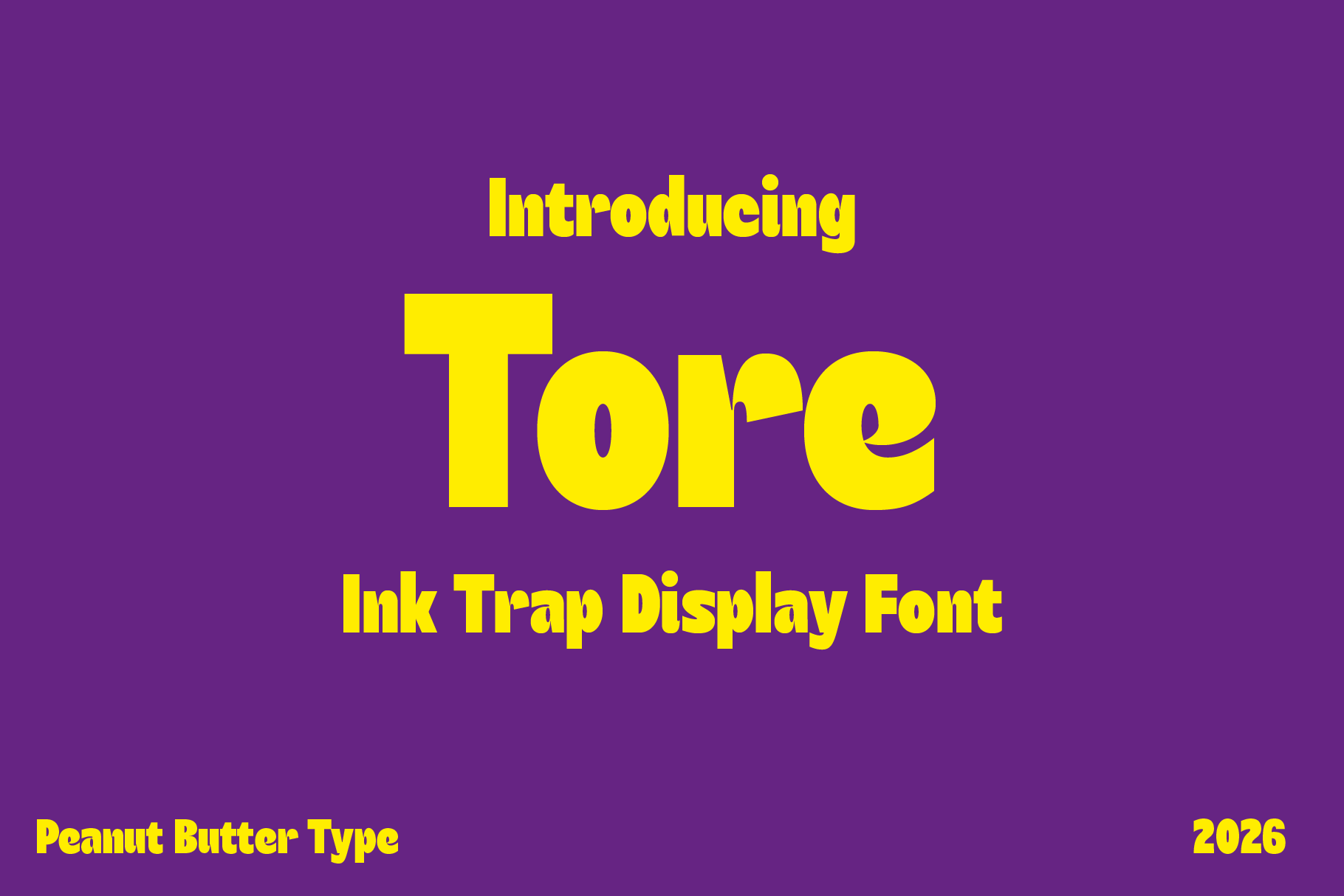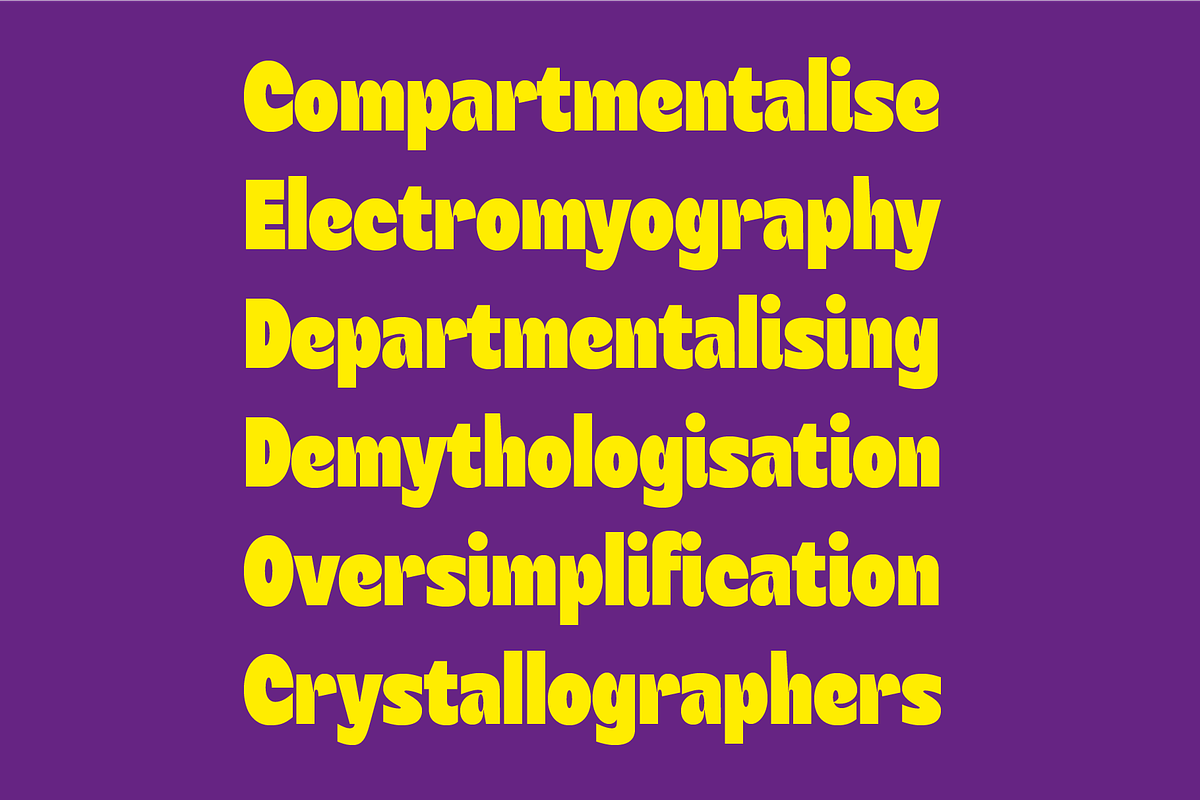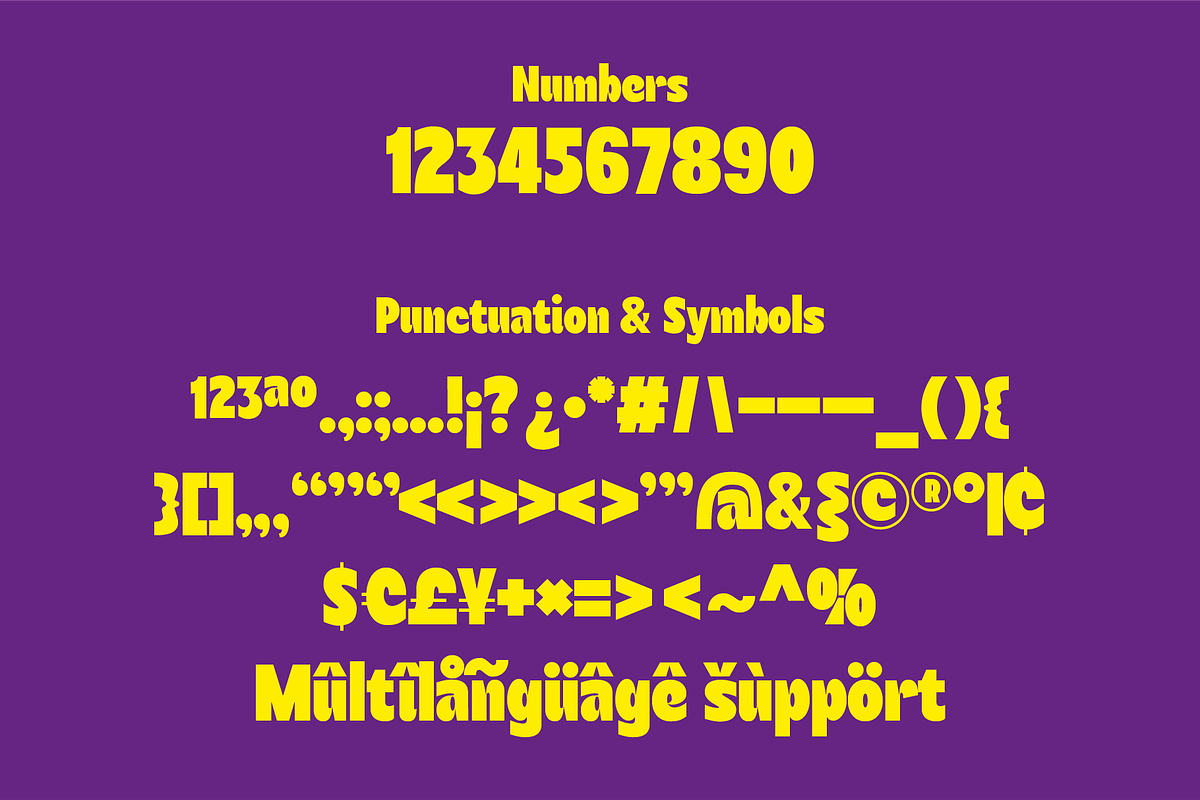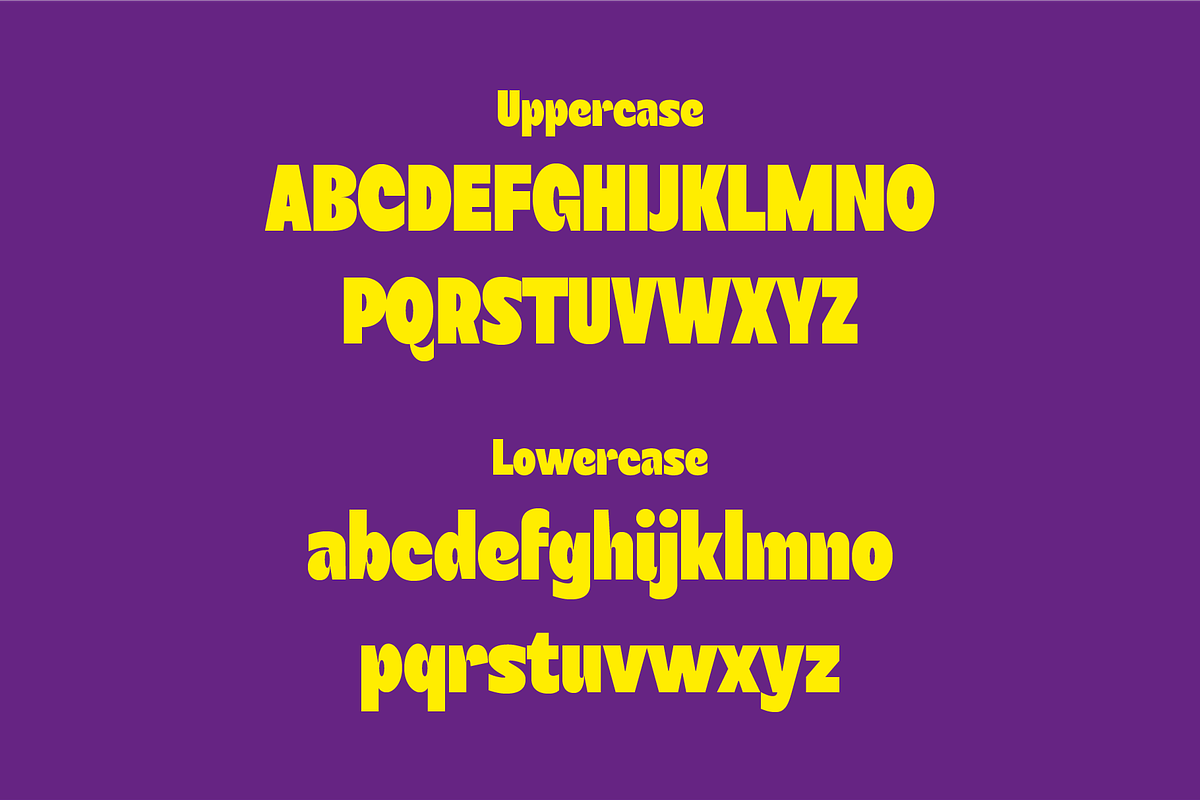
Tore Ink Trap Display Font
Tore is a modern ink trap sans serif font designed with sharp, distinctive cuts that enhance both readability and visual character. Its carefully crafted ink trap details not only improve clarity at smaller sizes but also give the typeface a contemporary and technical appearance. Tore delivers a strong, versatile personality suitable for branding, editorial design, packaging, posters, logos, and digital interfaces. Whether used for bold headlines or refined typography systems, Tore offers a perfect balance of functionality, style, and modern sophistication.